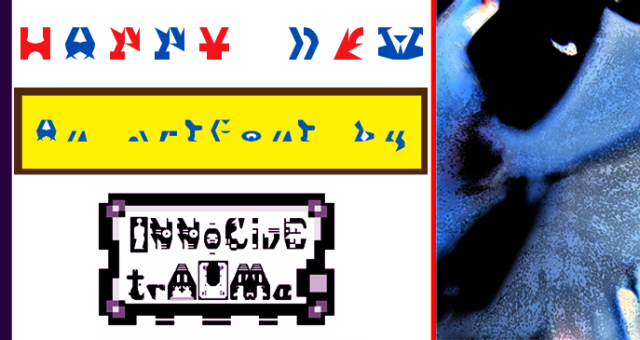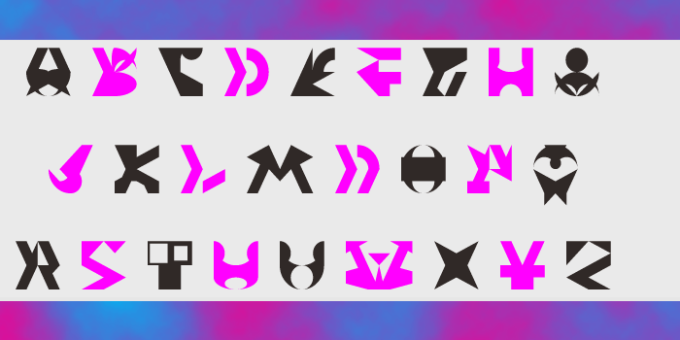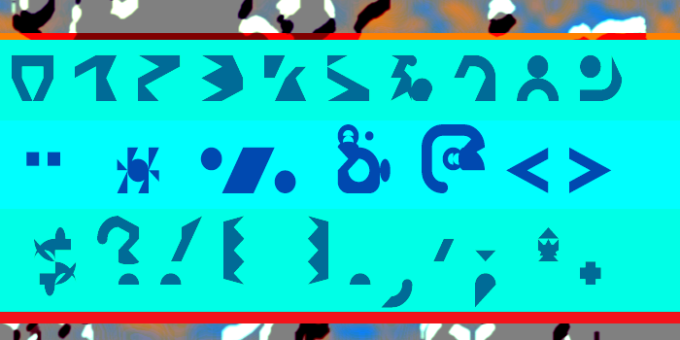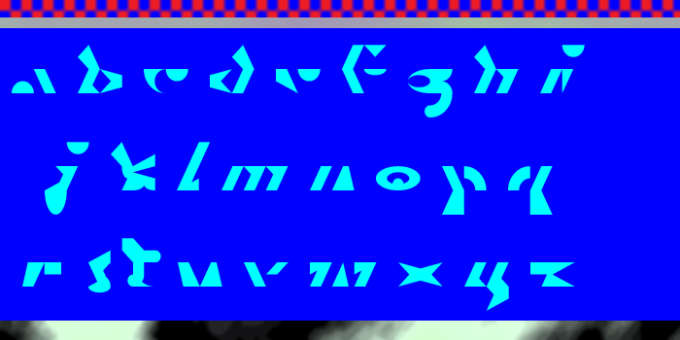
trAUMa 16 / Happy New
"Happy New", like all the "trAUMa" series, works at the frontier between Art & Type Design, Figuration & Abstraction, each font is a comprehensive world in which every glyph is a "living" entity. But put together they can produce your messages in the most accurate way.